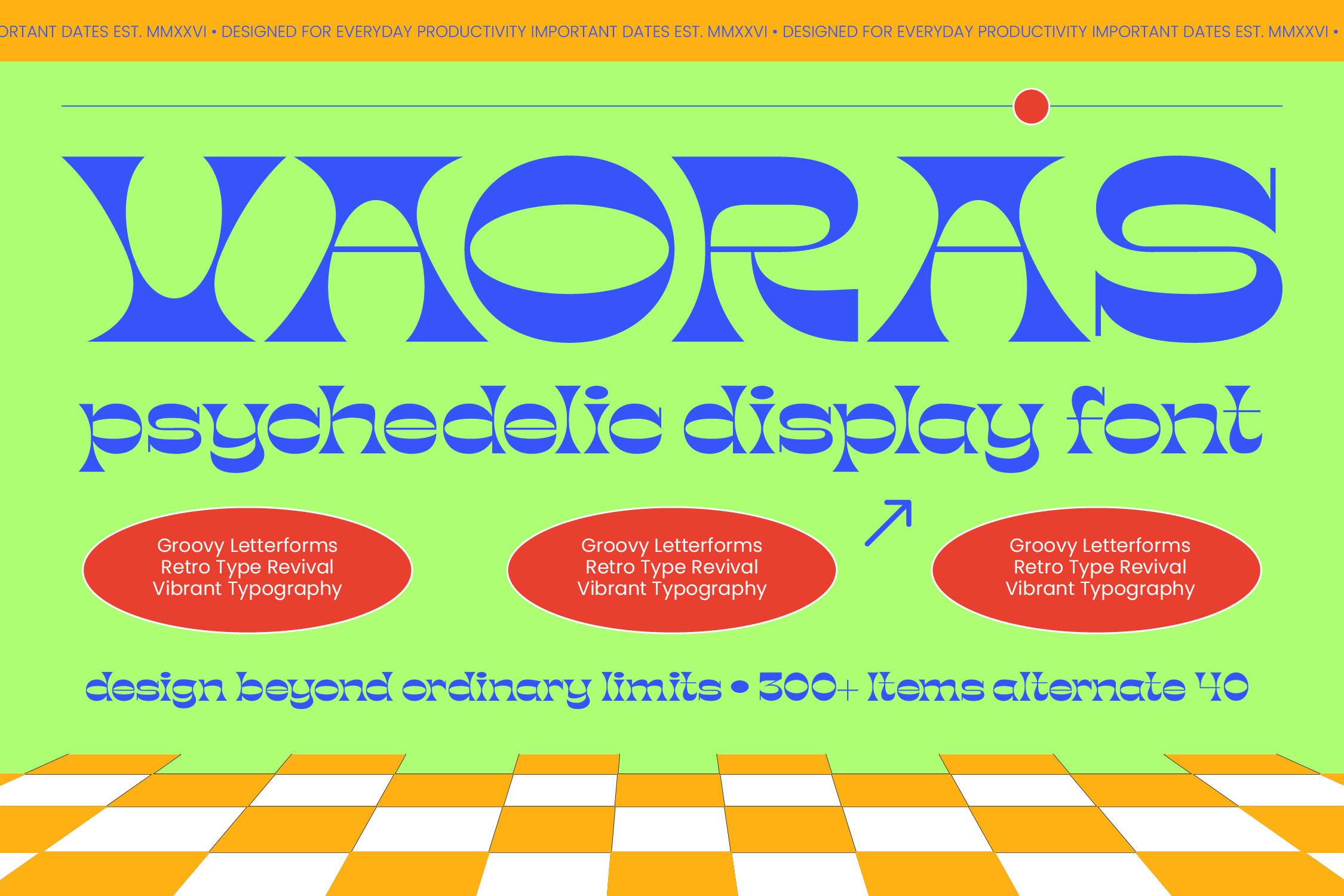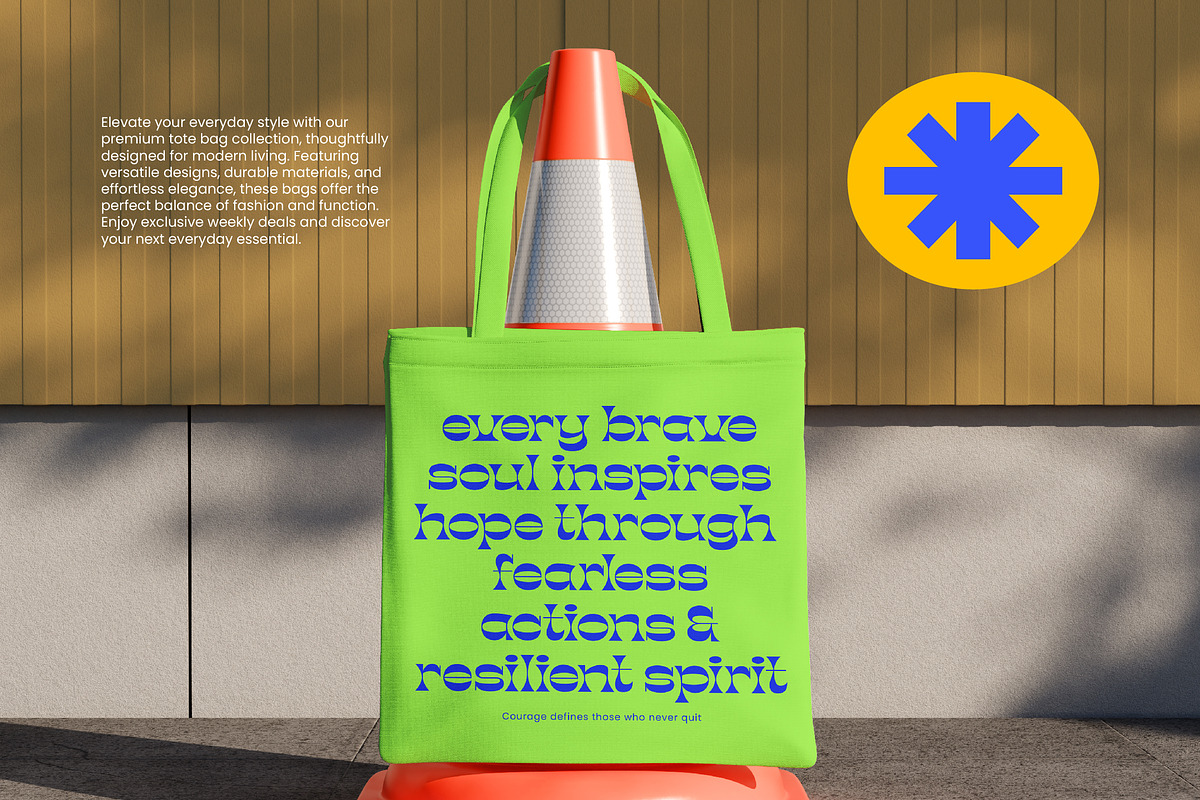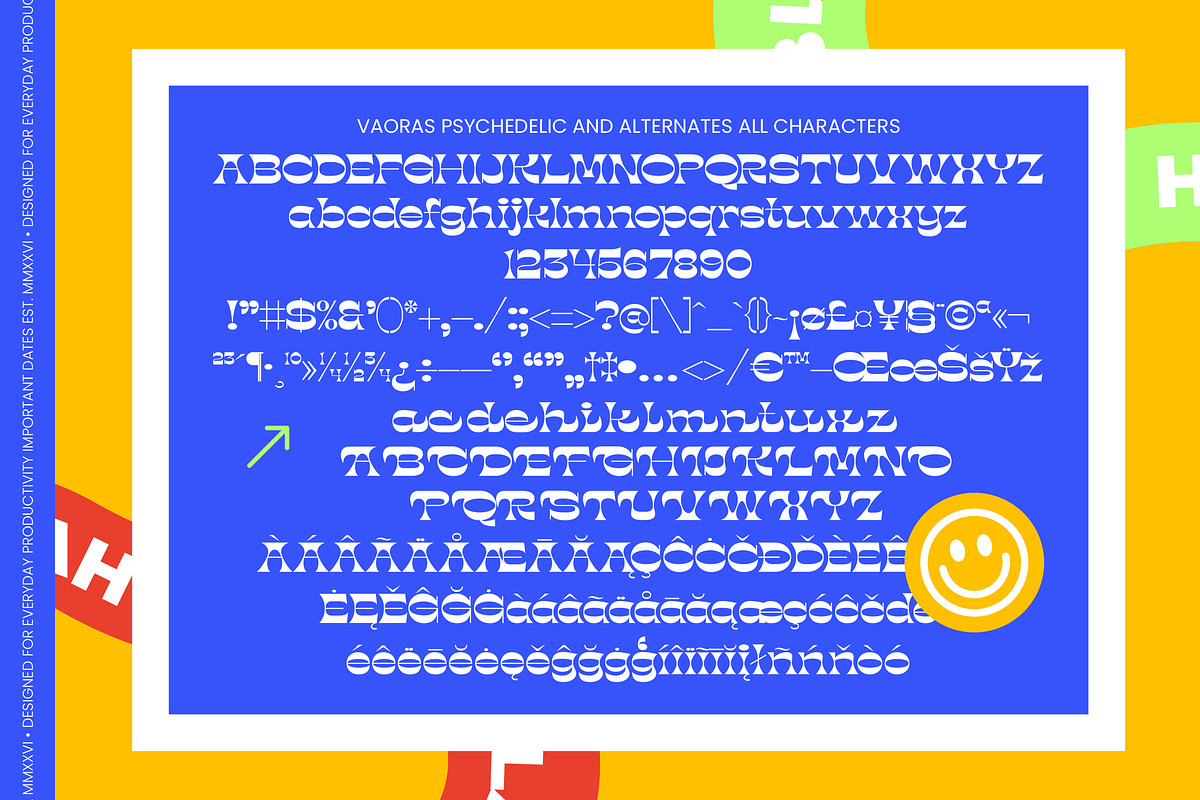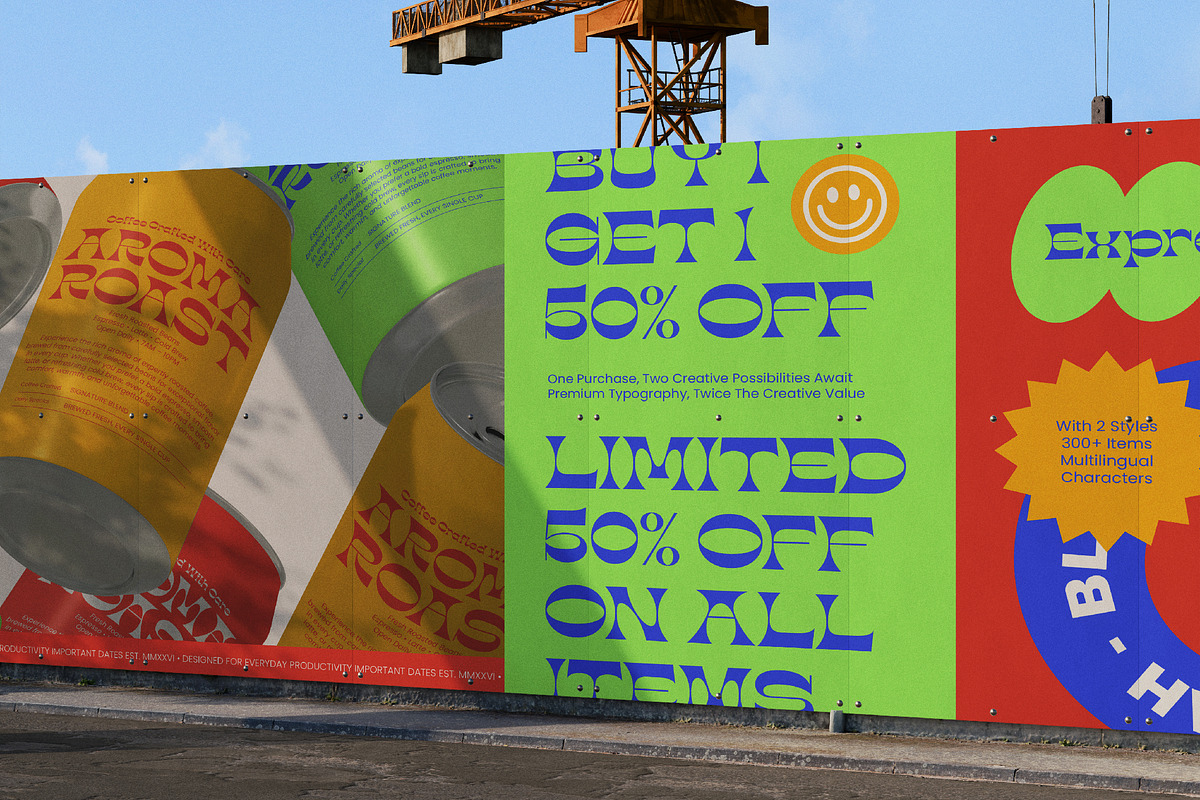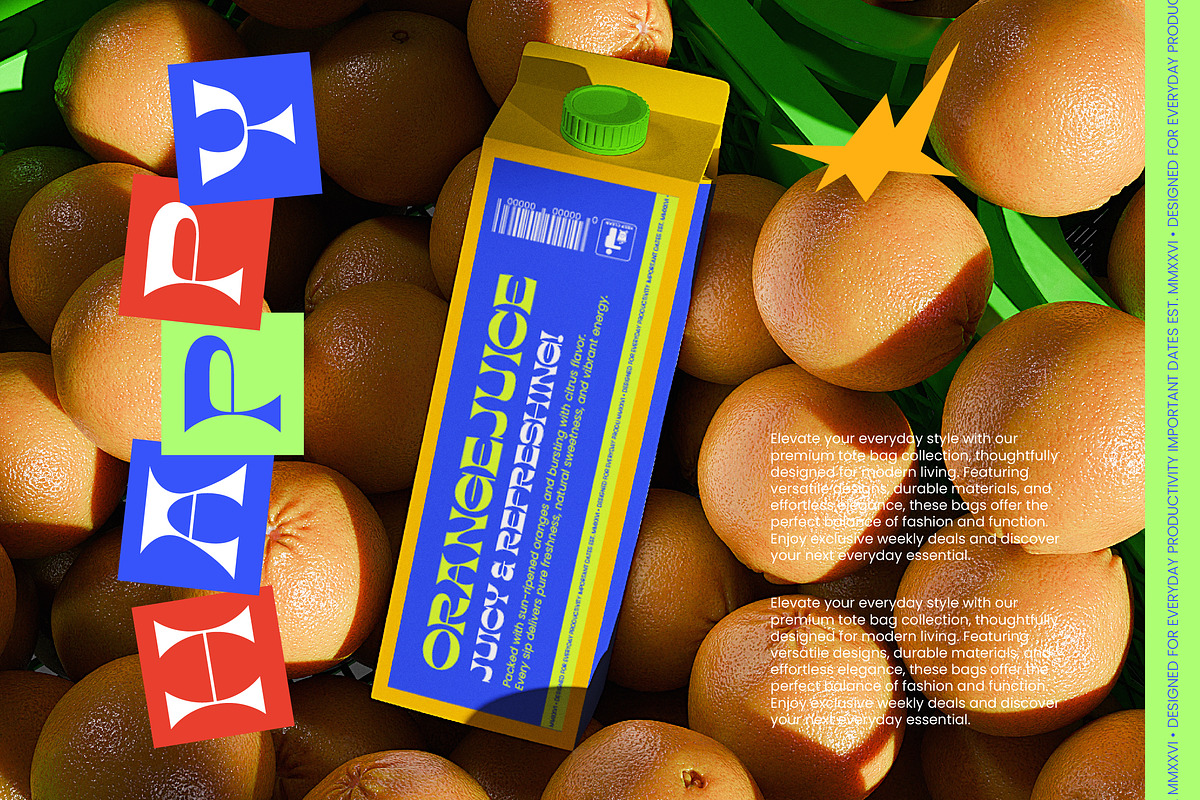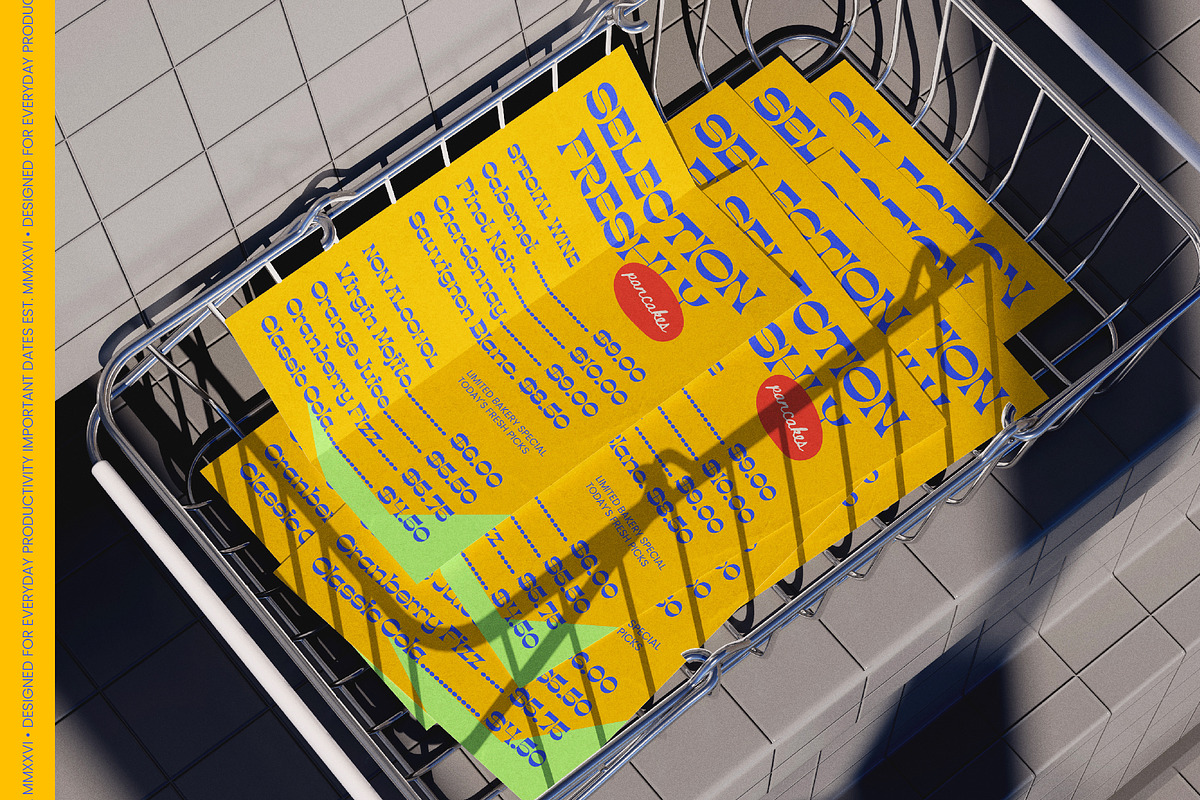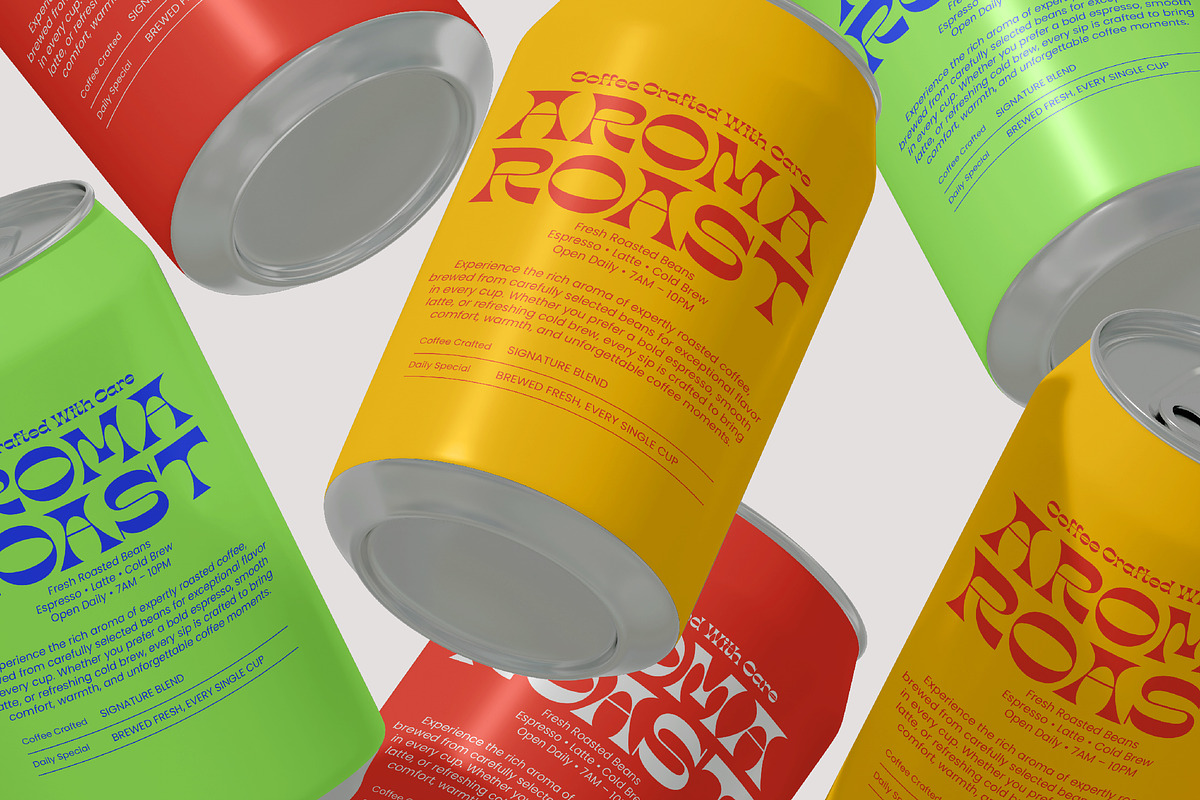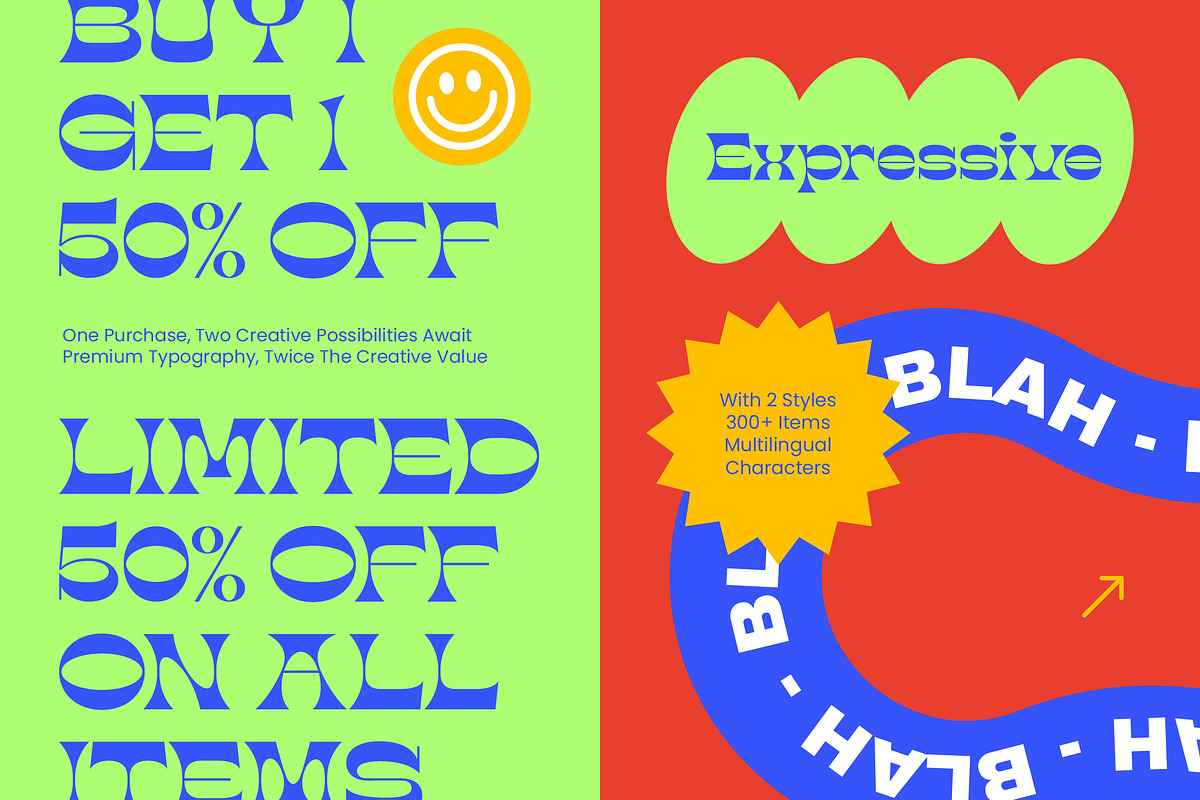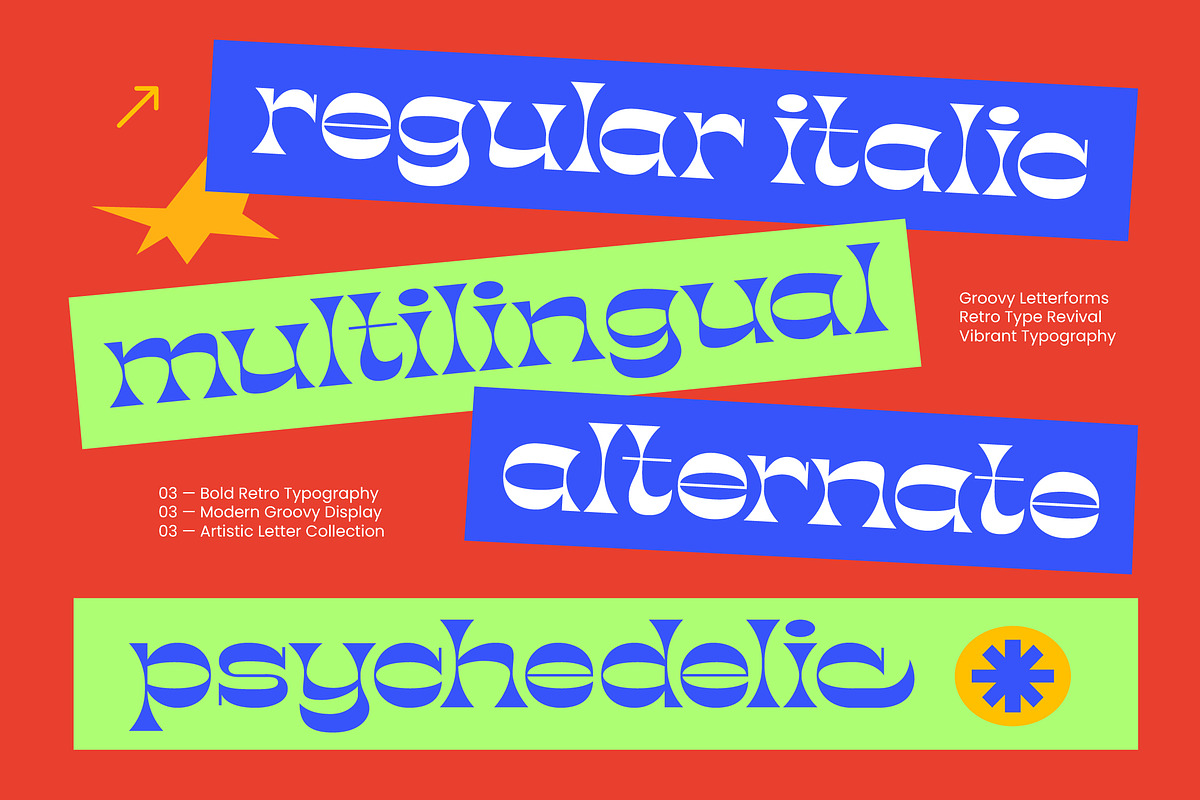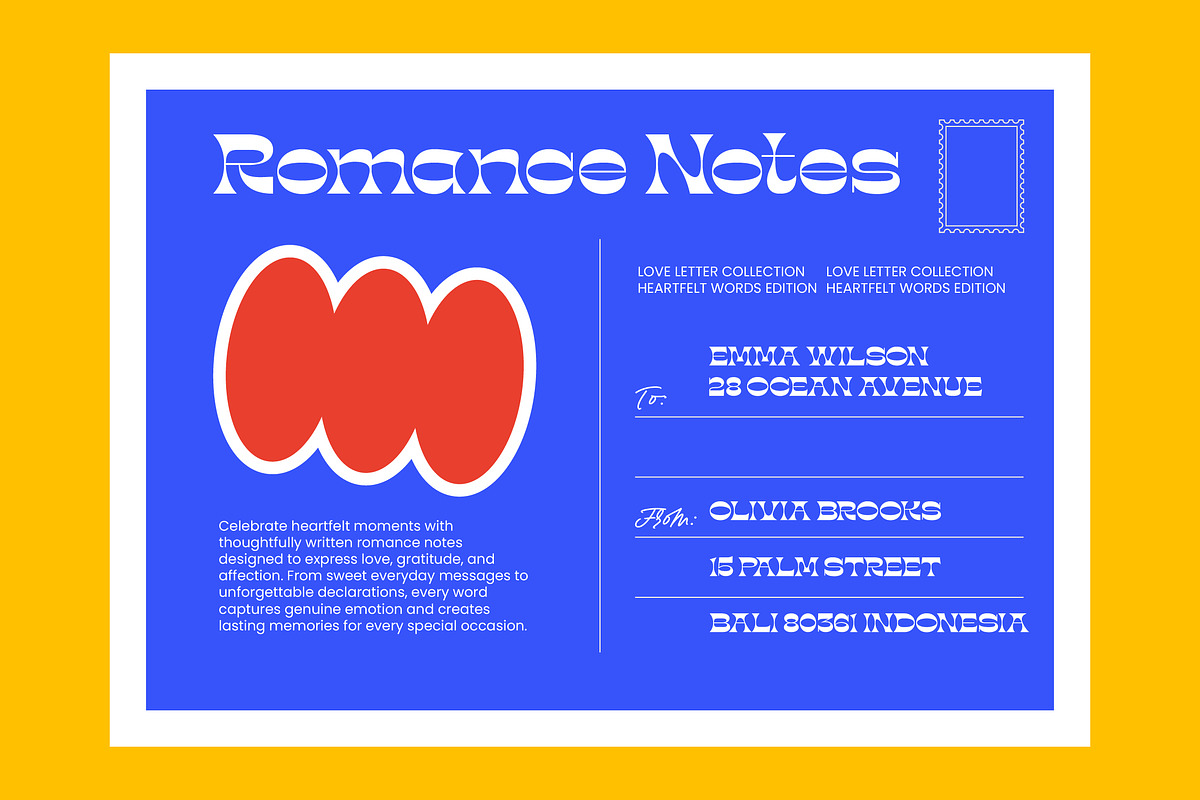
Vaoras Psychedelic Display Font
**Vaoras - Psychedelic Display Font , **Experience a stunning revival of the groovy era with Vaoras - Psychedelic Display Font, a typeface designed to break the mold of standard typography. Its liquid curves and high-contrast letterforms evoke a sense of fluid movement, making it the perfect choice for designers looking to inject vibrant energy into their work. This retro-inspired display face balances nostalgic charm with a clean, contemporary edge, ensuring your headlines stand out with an unmistakable bold presence.
Unlock limitless creative possibilities by integrating Vaoras - Psychedelic Display Font into your visual identity toolkit. It is perfectly suited for luxury branding, eye-catching packaging, and high-end editorial design where personality is paramount. Whether you are crafting concert posters, social media graphics, or apparel designs, this font serves as a dynamic centerpiece that guarantees a commanding visual impact across all digital and print media.
Expand your global design reach without boundaries using a typeface built for the modern, interconnected world. With its extensive multilingual support, Vaoras - Psychedelic Display Font adapts seamlessly across global markets, making it incredibly versatile for international projects. Featuring over 300+ glyphs and 40 unique alternates, it offers unparalleled flexibility for creative professionals seeking a custom-tailored look while maintaining a consistent brand aesthetic regardless of the language or region.